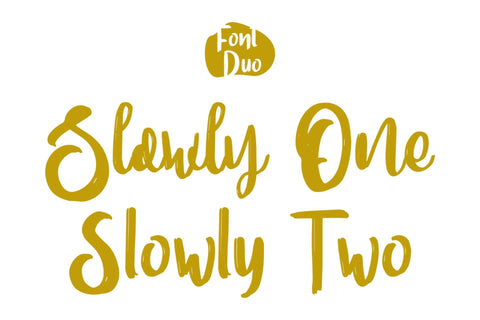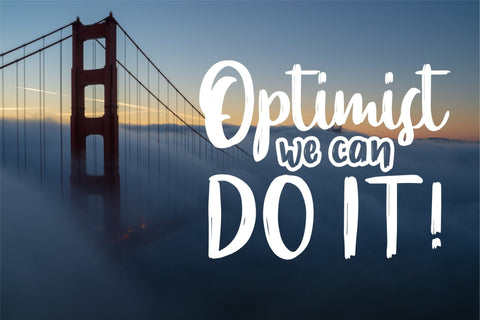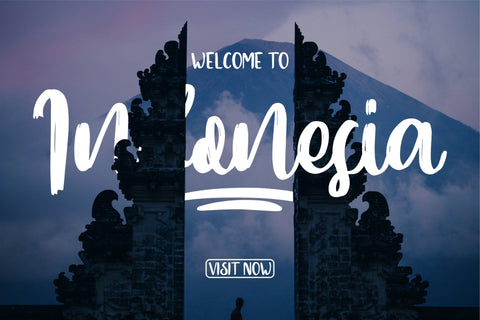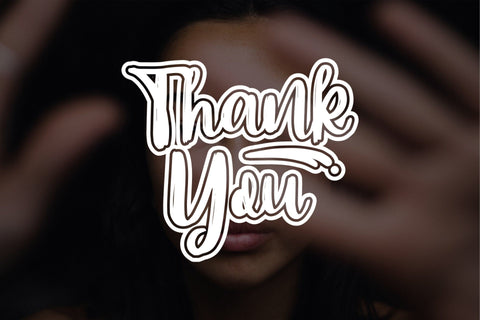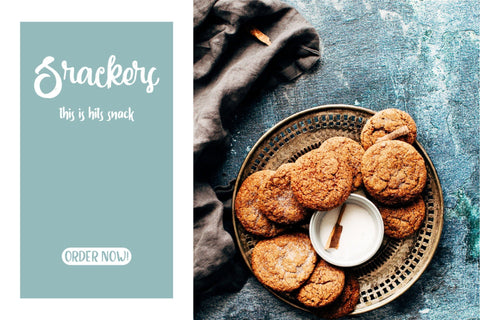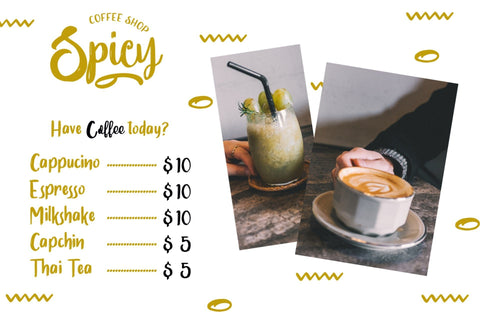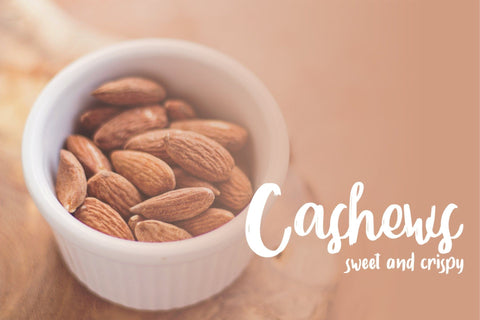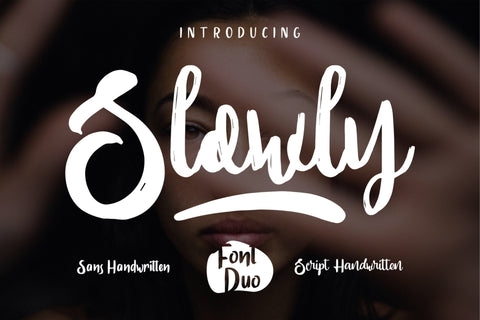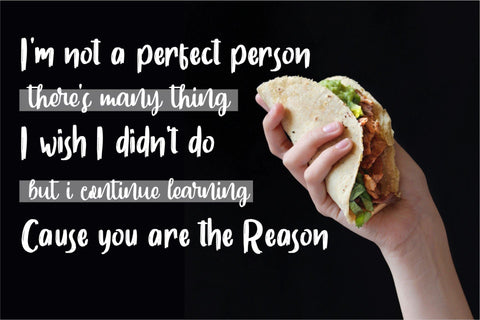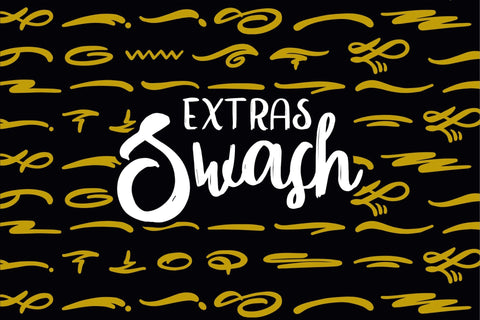
Slowly – Font Duo
SLOWLY is New font brushed very interesting, also provided some font duo and swashes extra. Also with additional Slowly Two, a font slant harmony to be combined with Slowly Two. Perfect for projects brands, logos, product packaging, posters, invitations, greeting cards, news, blogs, everything including personal charm etc.
- Extras 52 Swashes